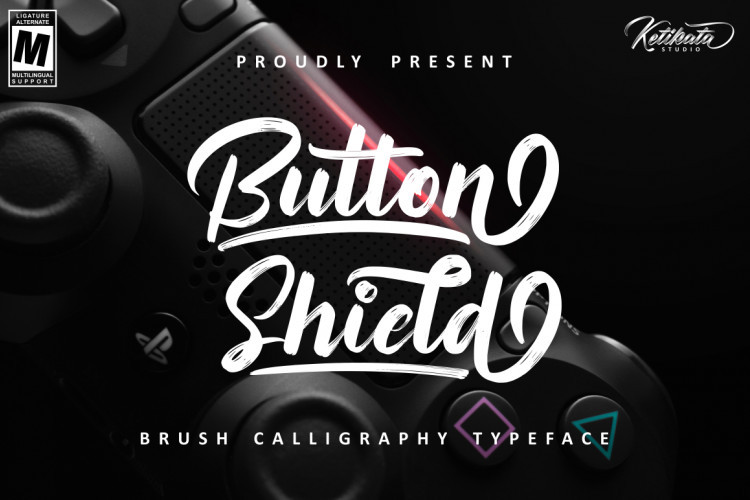
Button Shield Brush Font
Button Shield Brush Demo Font
This is brush calligraphy typeface. Combine it with other fonts and add style in your project. This handwritten font is ideal for branding and decorate your any project. Introducing Button Shield Font. It’s designed and shared by Ketikata Studio. Button Shield is a unique handwritten brush font. Its unique flow and style makes it perfect to use for prints, logos, quotes, badges, labels, packaging design, blog headlines or simply use it to add a fancy text on a photo.